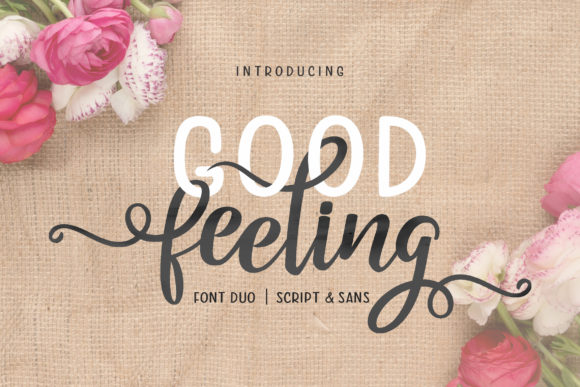
Introducing the Good Feeling Duo Font, a truly remarkable creation by Subectype that will breathe life into your projects! This font duo is not only visually captivating, but also packed with an array of features that will leave you awe-struck.
With its script-style font family, the Good Feeling Duo Font exudes a sense of elegance and sophistication. It effortlessly blends a branded feel with a friendly touch, making it the ideal choice for any project that requires a touch of personality.
The Good Feeling Duo Font offers two distinct styles that can be seamlessly combined to create a harmonious and unique design. Whether you choose to use them together or as standalone fonts, you can be sure that your creations will be nothing short of perfection.
Let your imagination run wild as you explore the endless possibilities this font duo has to offer. From eye-catching logos to stunning headlines, this versatile font is a surefire way to make a lasting impression.
But what truly sets the Good Feeling Duo Font apart is its ability to evoke emotions and connect with your audience on a deeper level. Its captivation script style effortlessly conveys warmth, creativity, and passion, making it the perfect choice for projects that require a personal touch.
Imagine your brand's message beautifully brought to life with the help of this font duo. Your customers will be instantly drawn in, captivated by the charm and grace it exudes.
Don't settle for ordinary when you can have extraordinary. Elevate your designs and leave a lasting impression with the Good Feeling Duo Font.
Unleash your creativity and leave a lasting impression with the Good Feeling Duo Font - your ultimate companion in design.